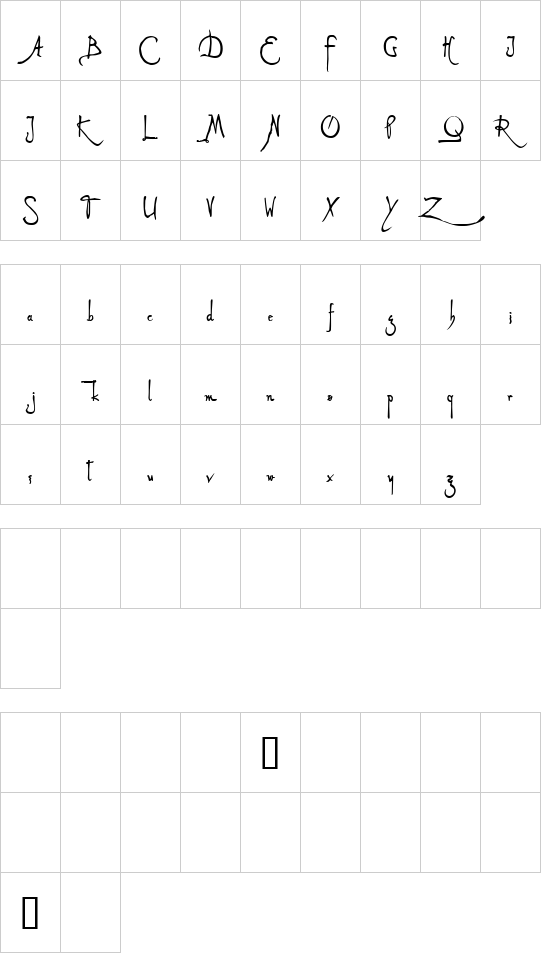
Alleghieri Demo is a flowing script font with elegant looping strokes and a literary, romantic feel. The graceful ascenders and connected curves give it the air of handwritten verse, smooth and expressive across the page.
It fits poetry layouts, wedding stationery, certificate text, and refined branding that calls for graceful handwritten character. Alleghieri Demo is free to download as a TrueType file, and you can preview your own lines to see how its loops and connections carry across a phrase or quotation.